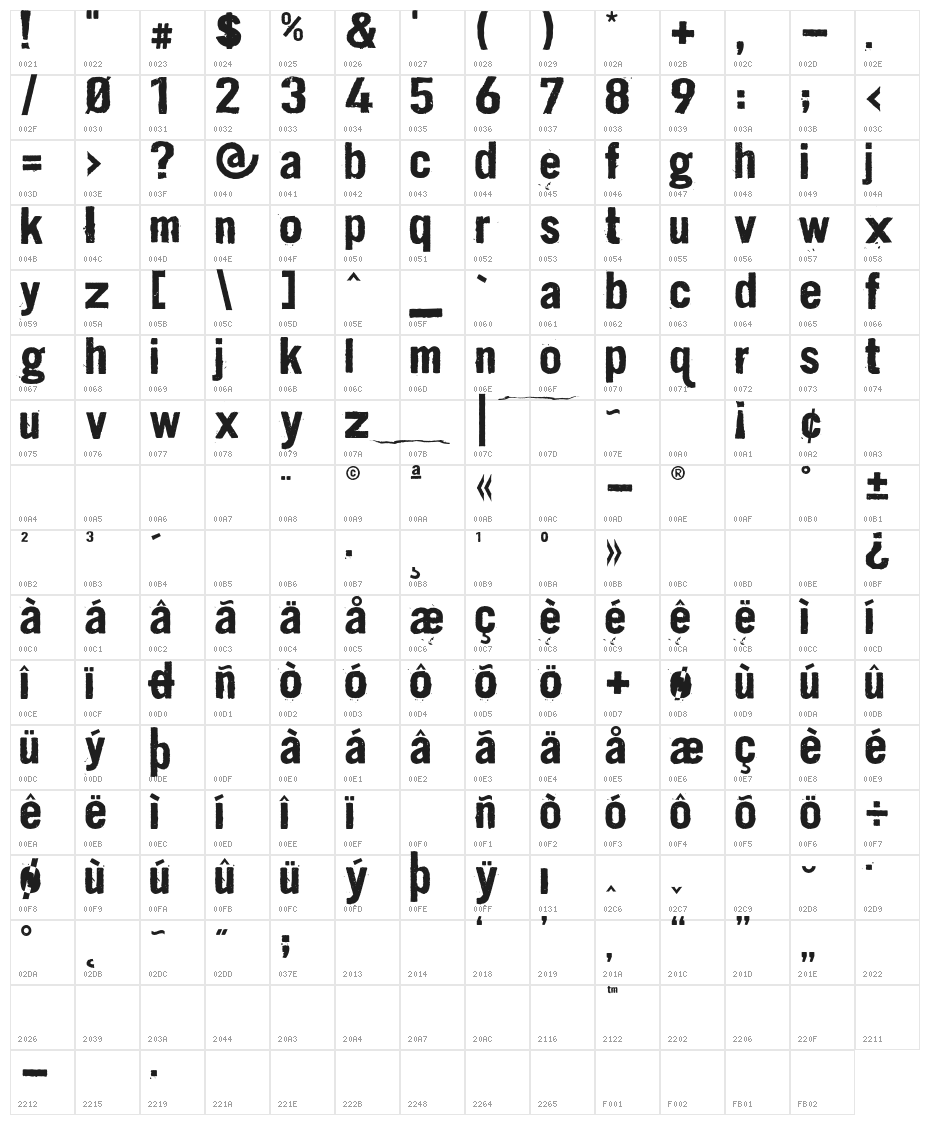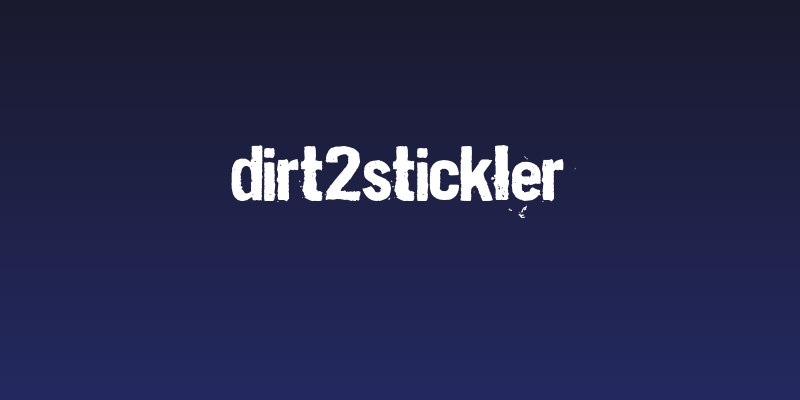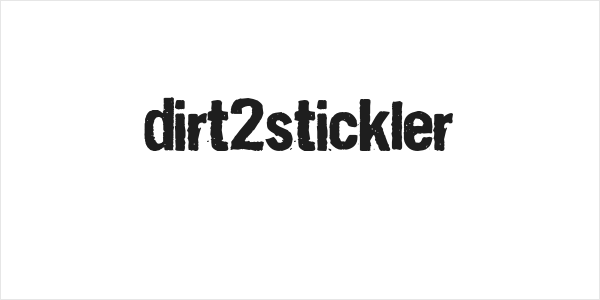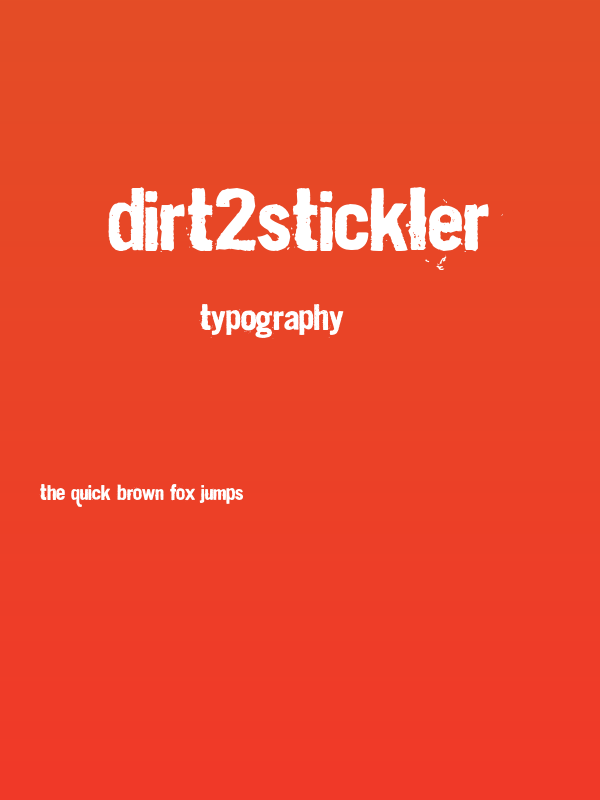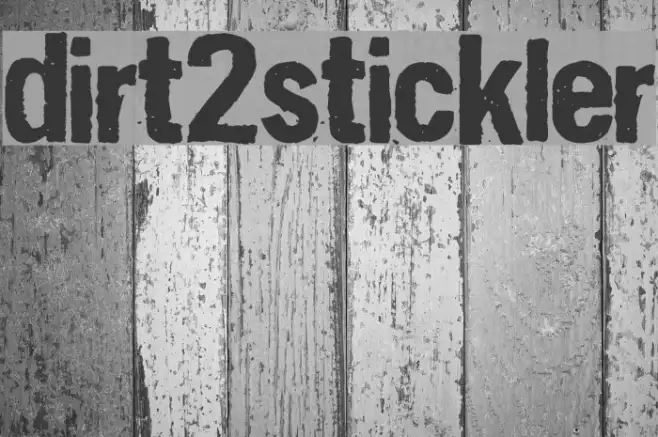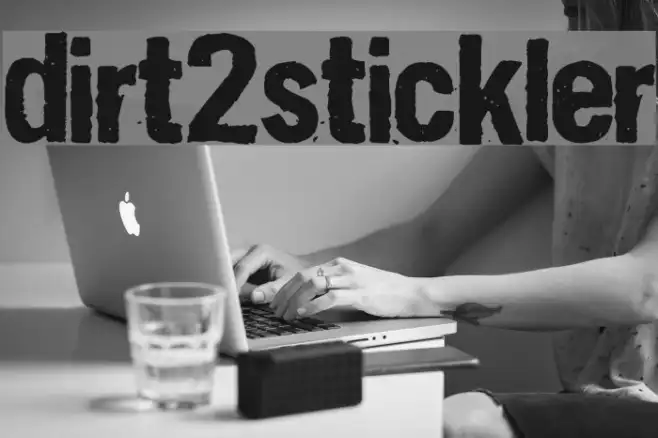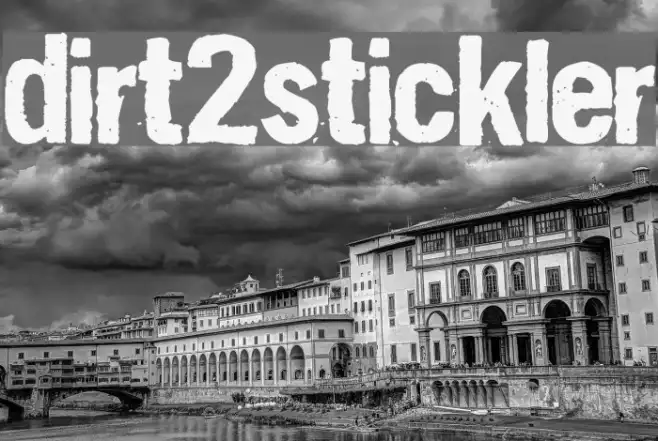
Dirt2Stickler Font
Dirt2Stickler Description
This font exhibits a rugged, distressed appearance, characterized by its bold and impactful letterforms. Each character appears weathered, with irregular edges and a textured surface that suggests a vintage, worn-out look. The uppercase and lowercase letters maintain a consistent style, with a strong presence that commands attention. The numerals and special characters follow the same aesthetic, adding to the cohesive design. This font's unique style makes it ideal for projects that require a gritty, industrial feel, such as posters, album covers, or branding for edgy products.
| Proposed Projects | Ideal for posters, album covers, branding for edgy products, and any design needing a gritty, industrial feel. |